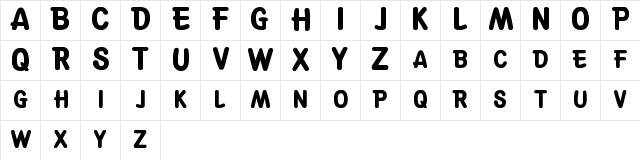
Suske & Wiske Regular
Design Context for Suske & Wiske Typeface
Suske & Wiske is a composed and adaptable typeface that performs quietly and consistently across a wide range of design contexts.
Pro Tip: Use Suske & Wiske in both headline and body roles to test its range before committing to a single application.